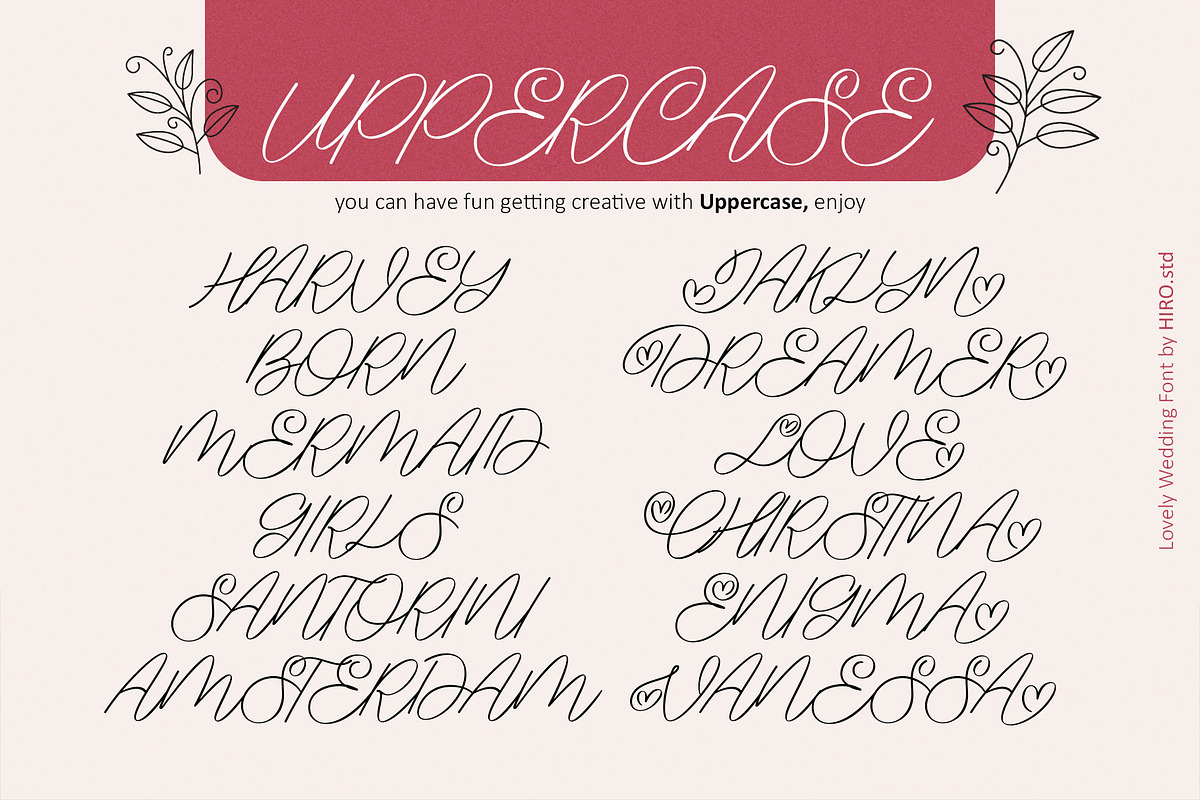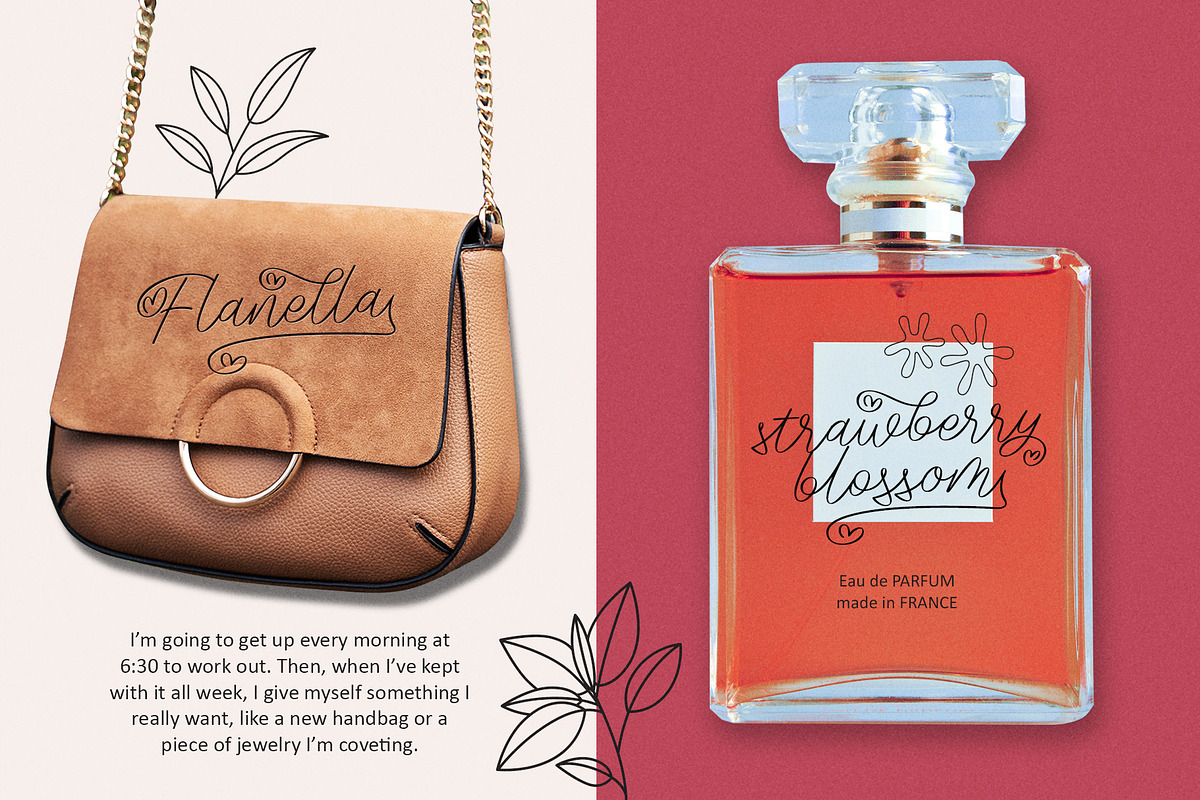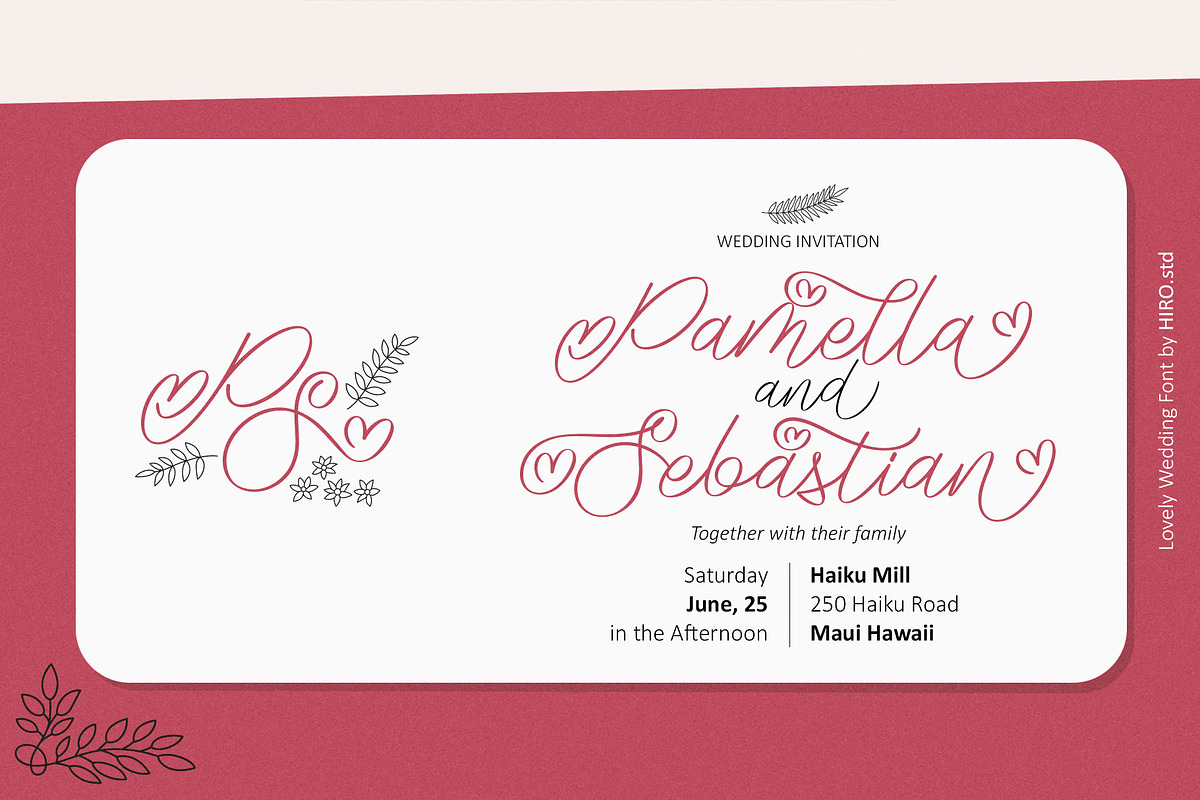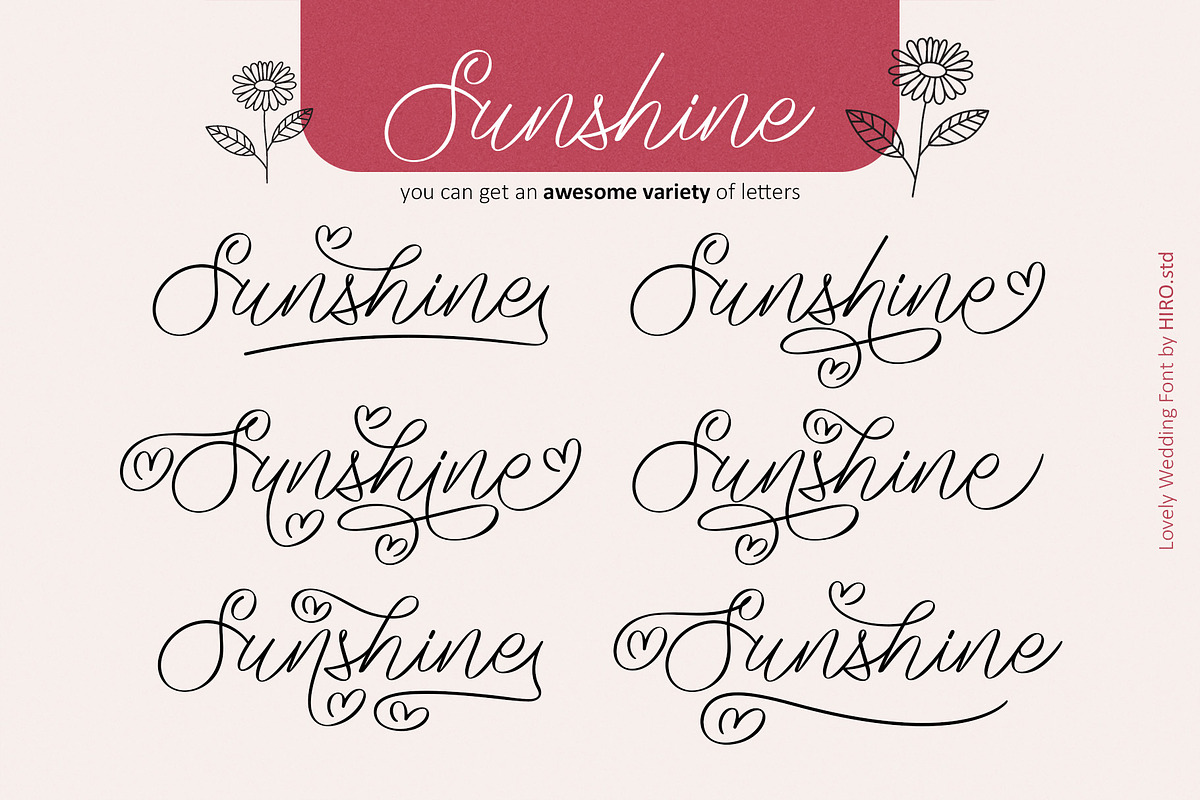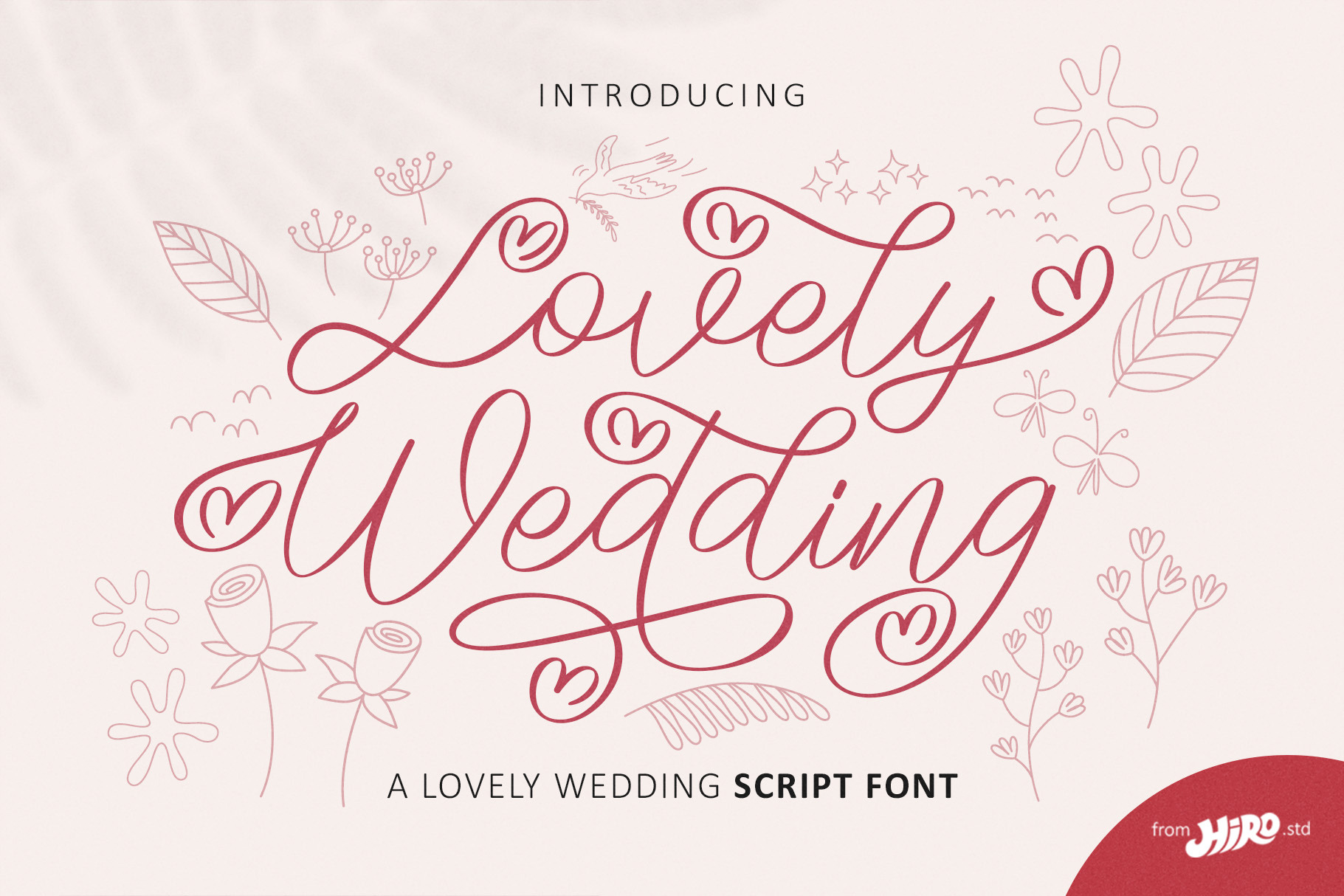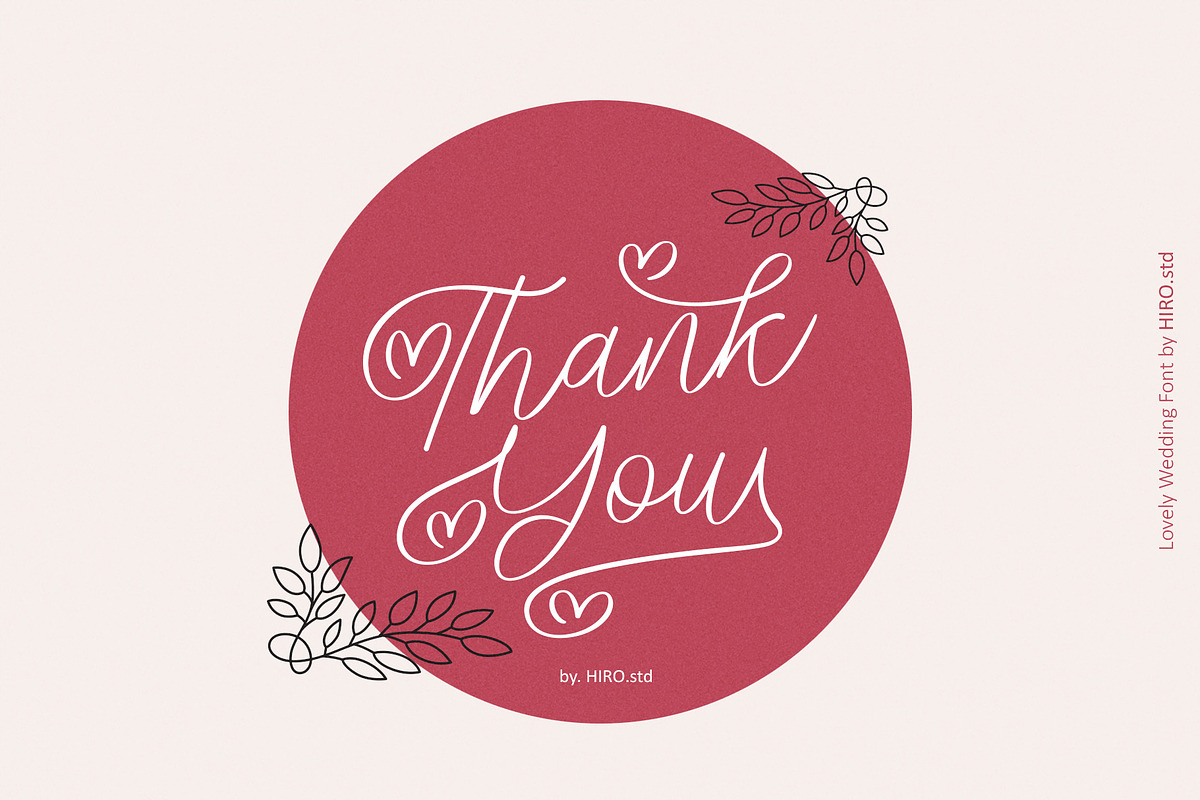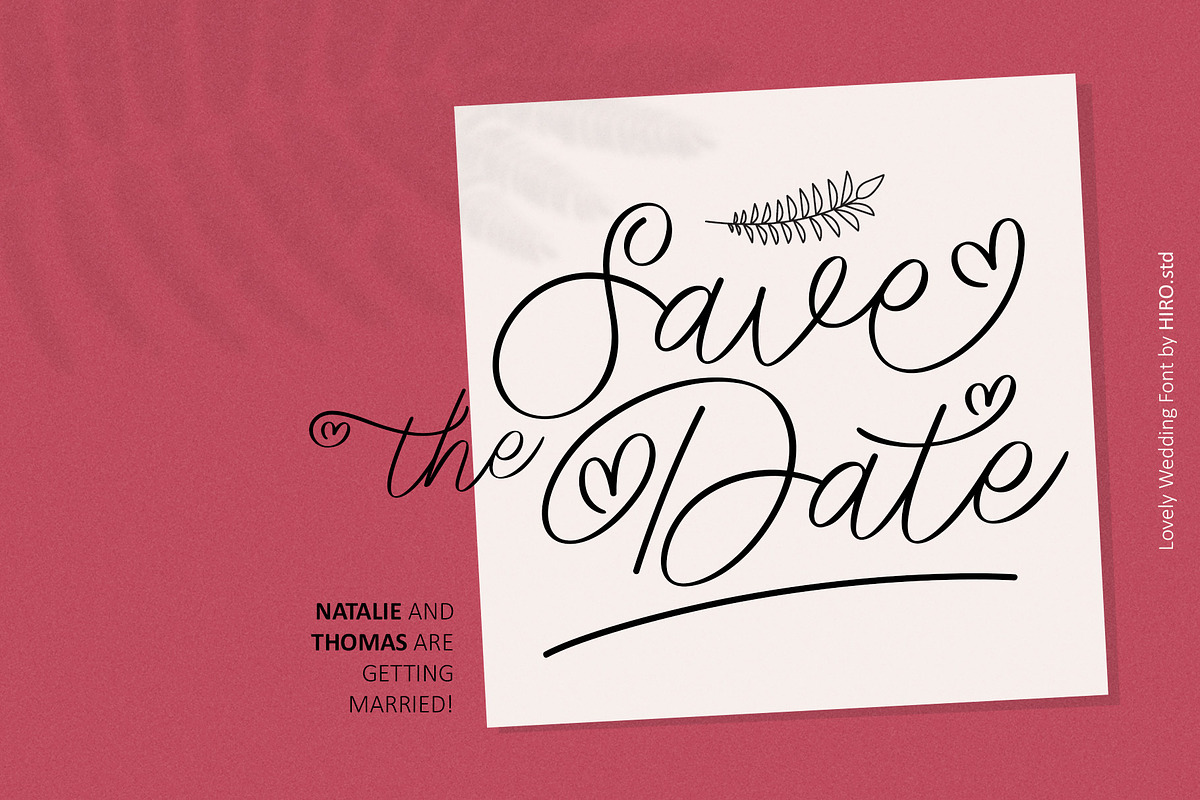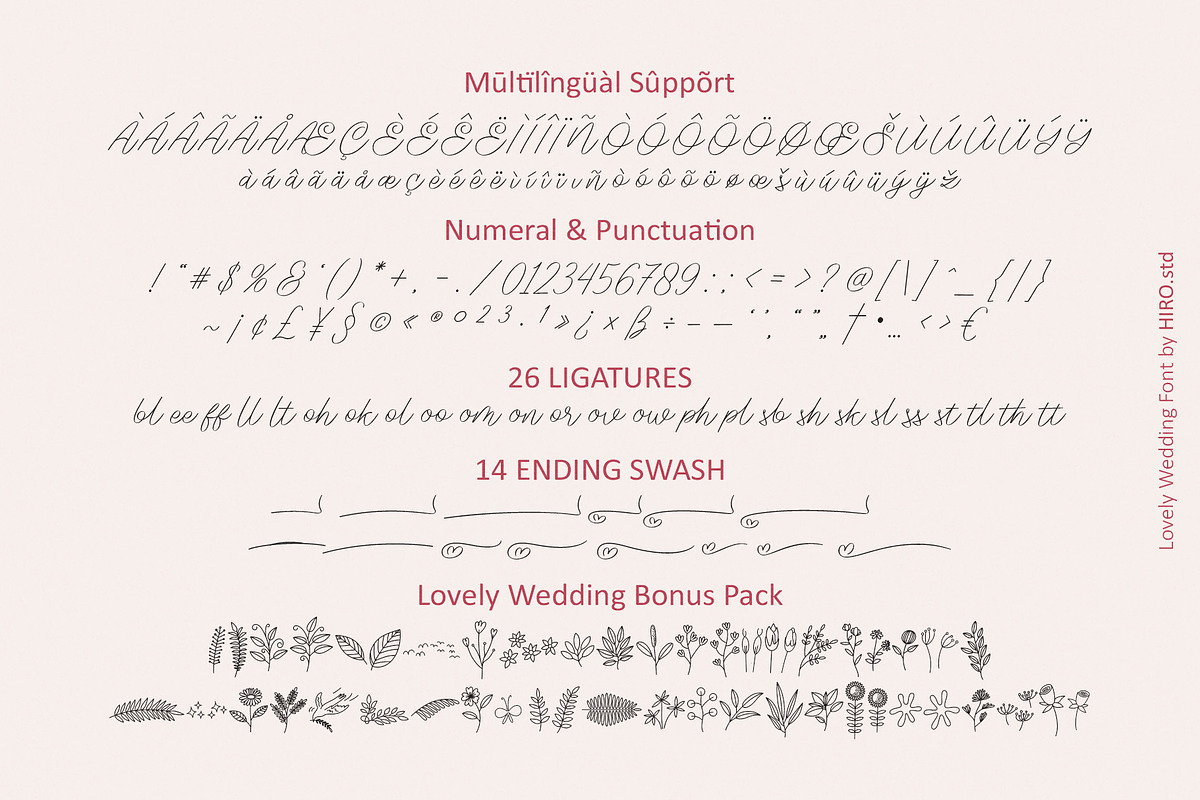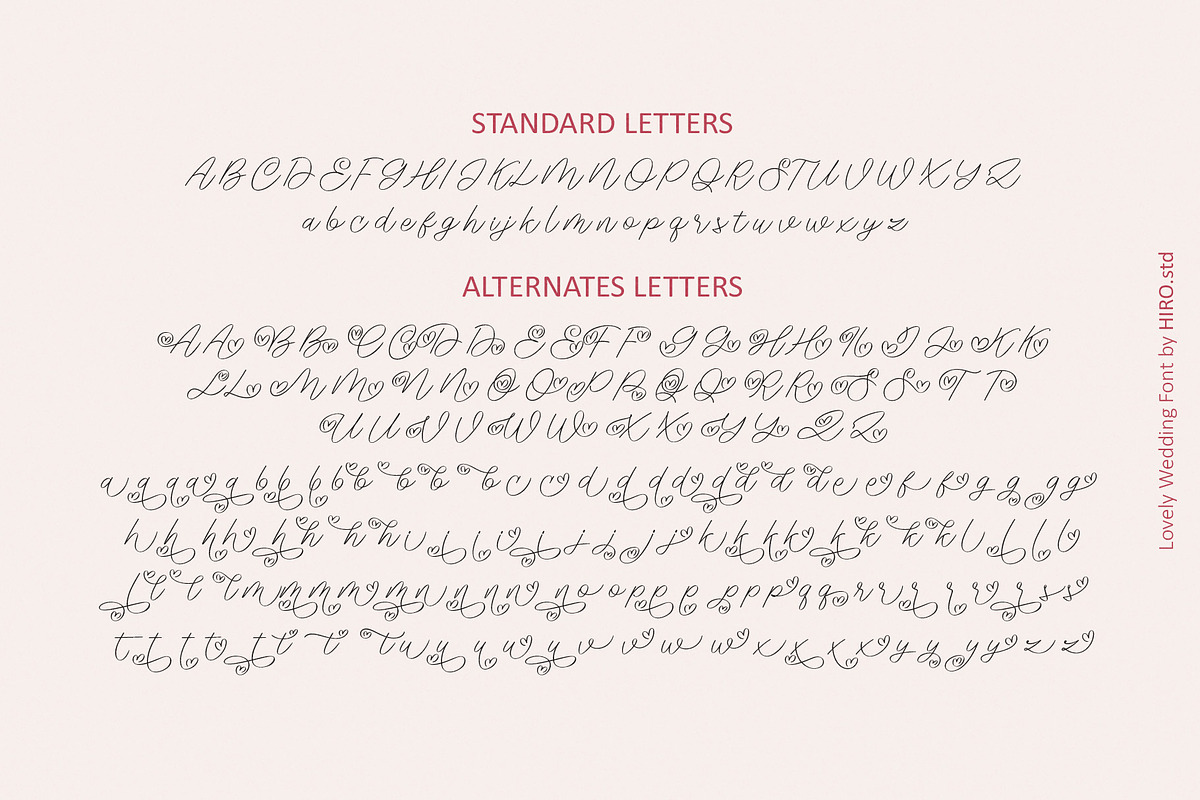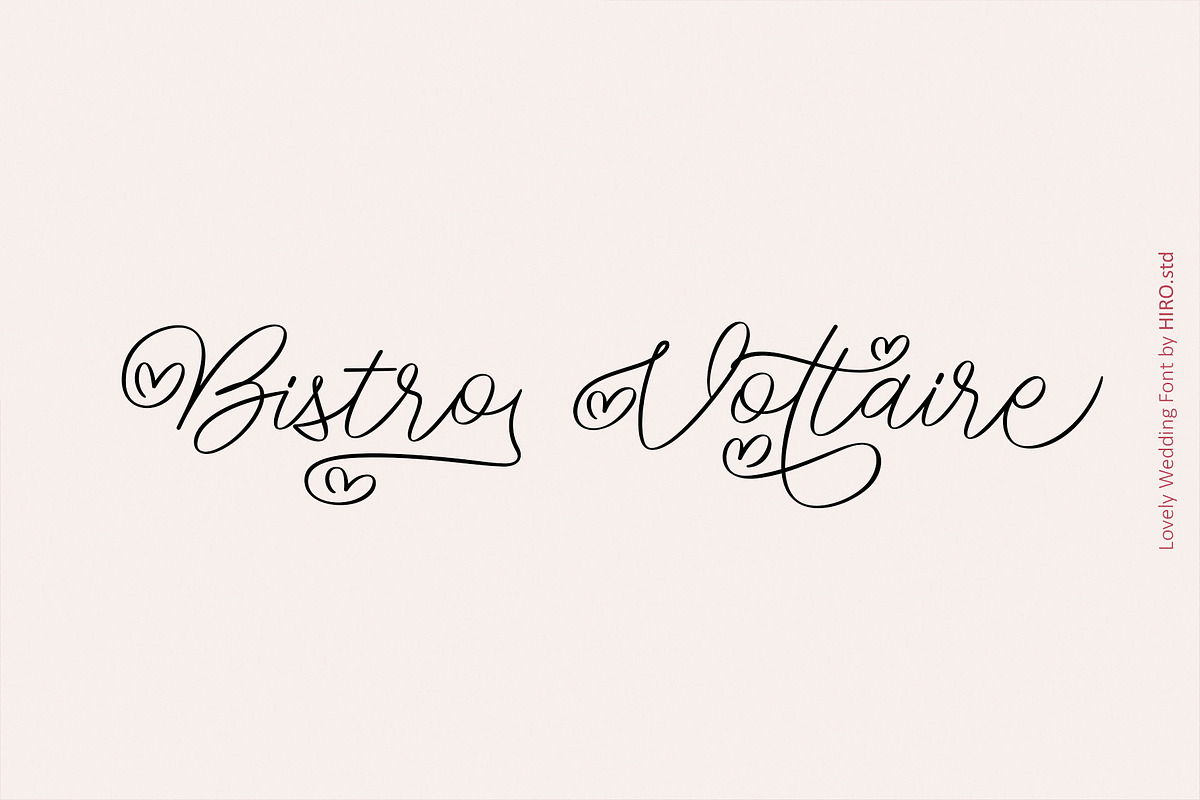
Lovely Wedding - Wedding Script Font
Lovely Wedding is a lovely Wedding script font.
This font describes about casual, classy, luxury, elegant, stylish, dynamic, easy to use and will bring a good harmony when the letters are connected and paired each other.
- Support Opentype Features
- Support Ligatures
- Alternate Uppercase and Lowercase
- Bonus Pack
USE Lovely Wedding Font works great in any wedding invitation, product packaging, logotype, quotes and any projects that need all about love script taste.